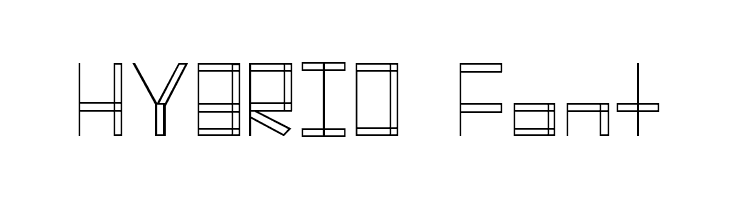
A geometric and angular font with a modern, futuristic style.
A modern, geometric font with a futuristic and dynamic style.
An intricate and decorative font with geometric and flowing elements.
A geometric, angular font with a modern, three-dimensional style.
A geometric, 3D outlined font with a futuristic and technical style.
A futuristic outline font with geometric and decorative elements.
A modern, minimalist font with thin lines and geometric shapes.
A futuristic, geometric font with a striped, angular design.
A geometric, hollow font with a modern and futuristic style.